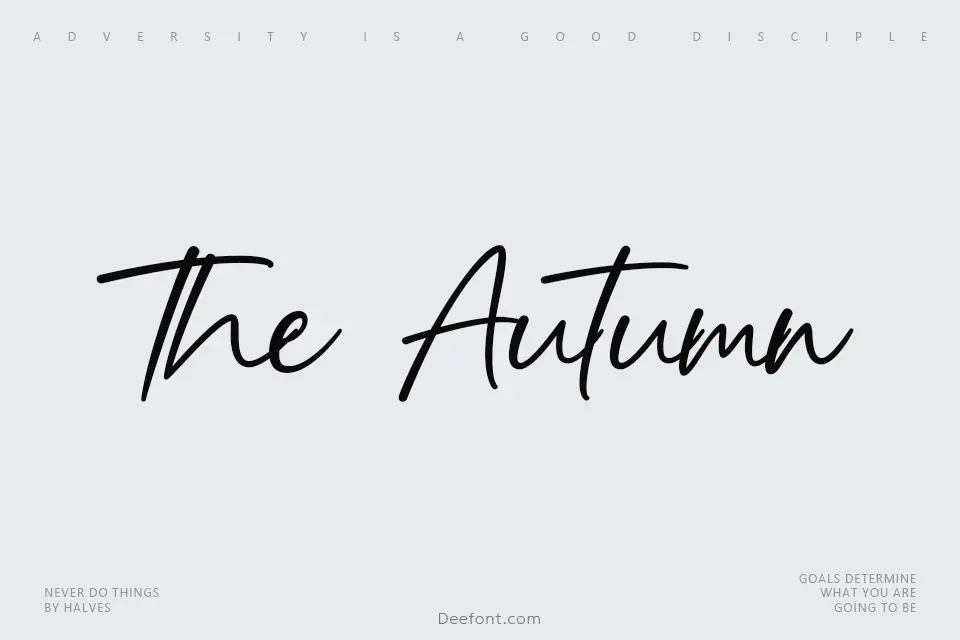
The Autumn Font
The Autumn Font is a beautiful, well-balanced, and graceful script typeface. It is defined by smooth curves and is perfect for fashion branding or editorial designs.